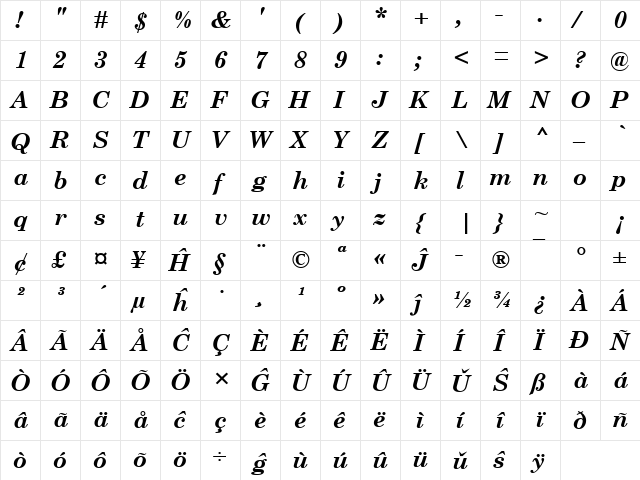
Century Schoolbook Eo Bold Italic
Design Context for Century Schoolbook Eo Typeface
Century Schoolbook Eo is a composed and adaptable typeface that performs quietly and consistently across a wide range of design contexts. The dynamic lean of this cut emphasises speed and emphasis in any layout. The heavy weight commands attention and anchors typographic hierarchies.
Pro Tip: Use Century Schoolbook Eo for emphasis, pull quotes, and subheadings where its slanted energy can add rhythm to the layout.